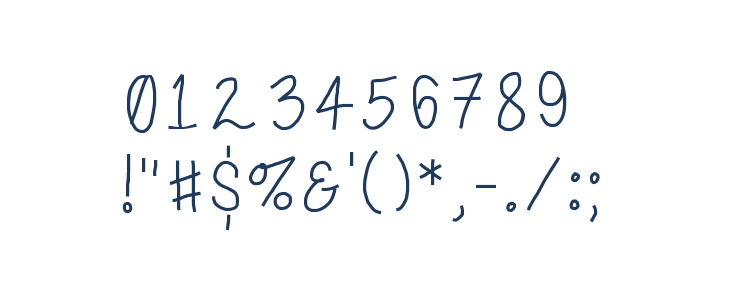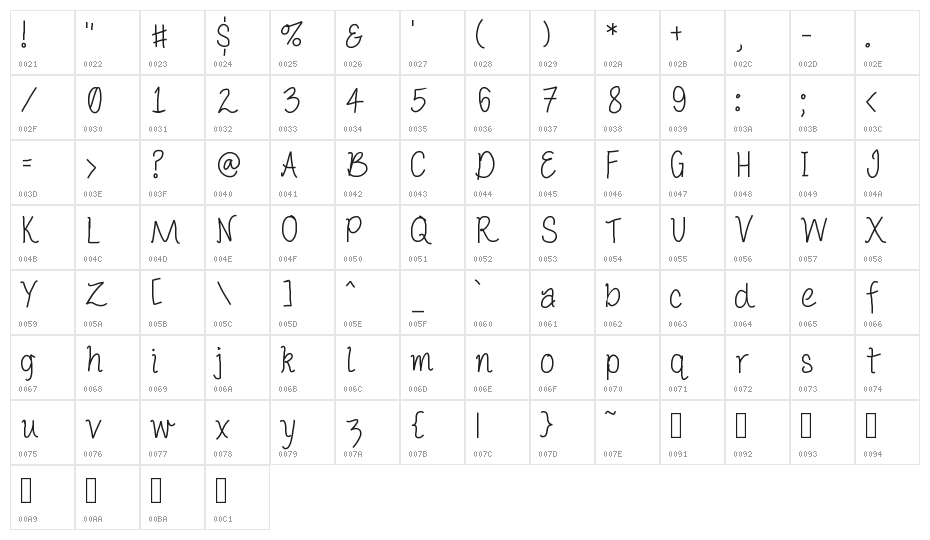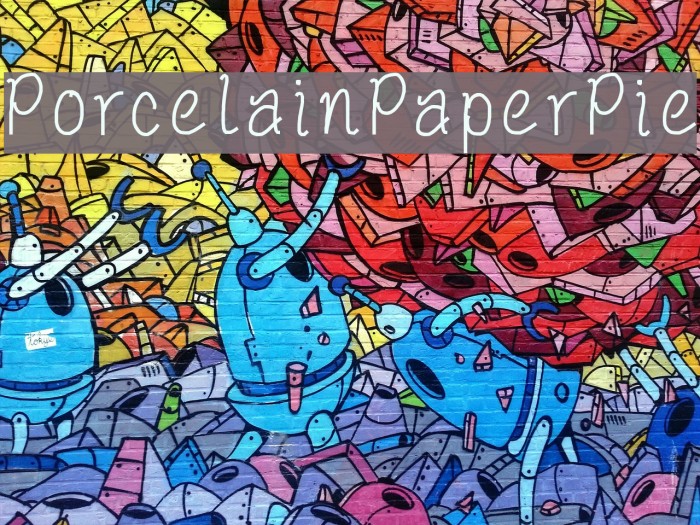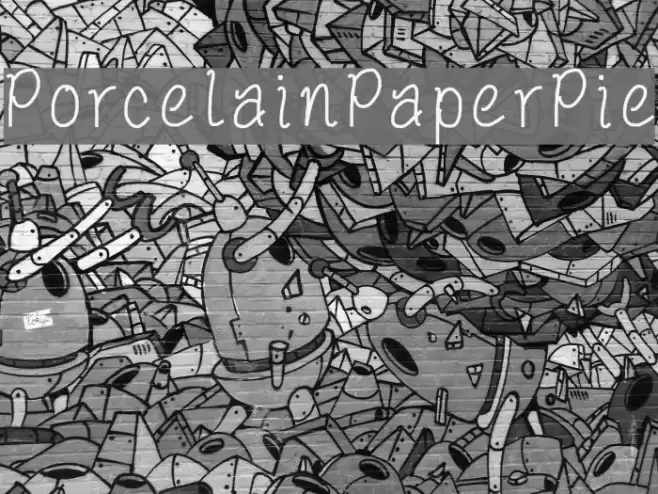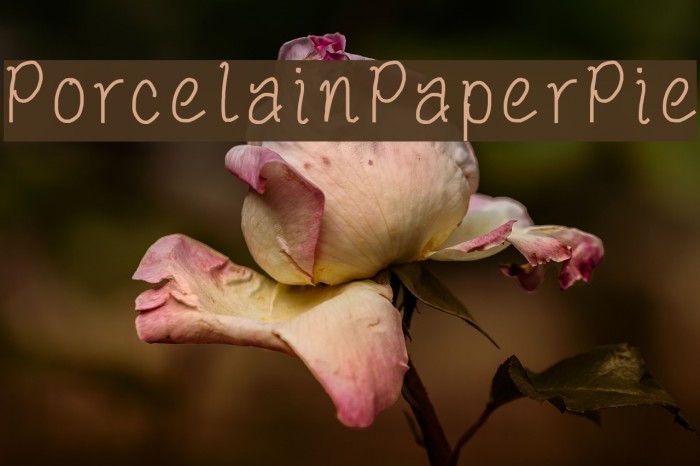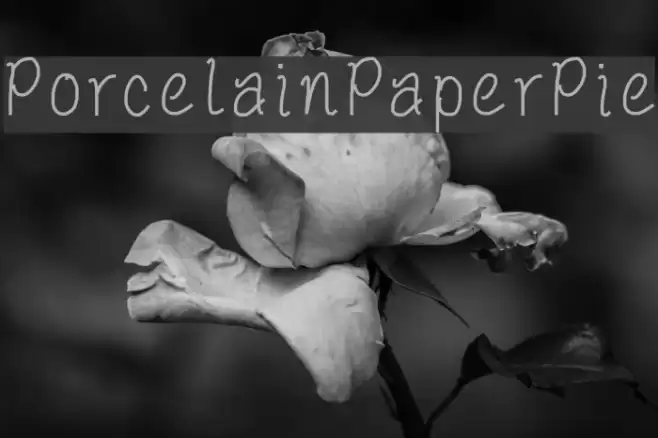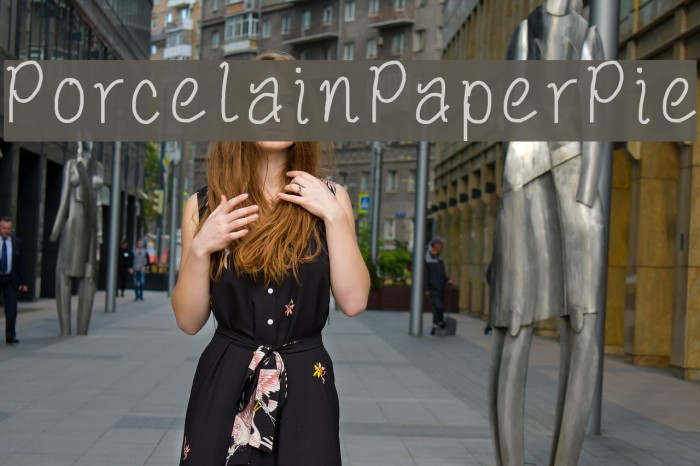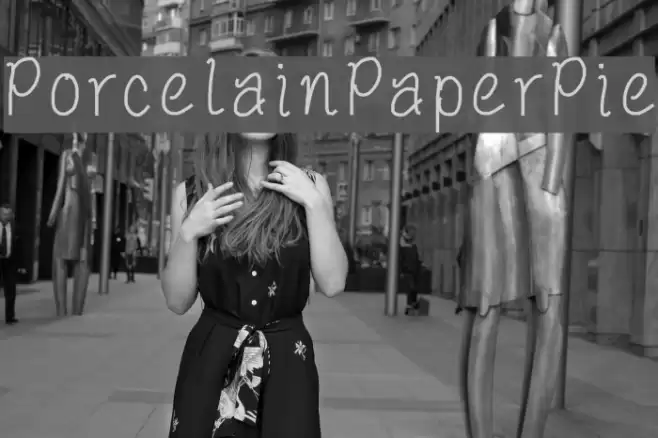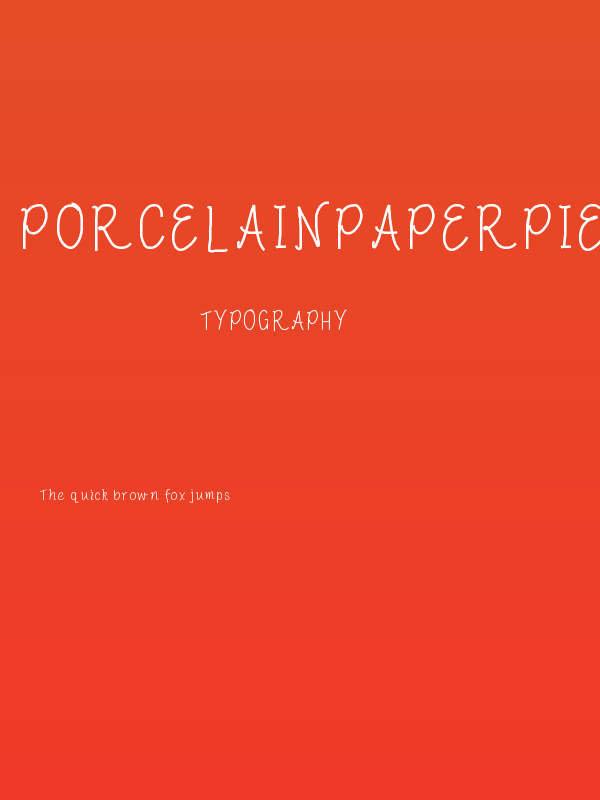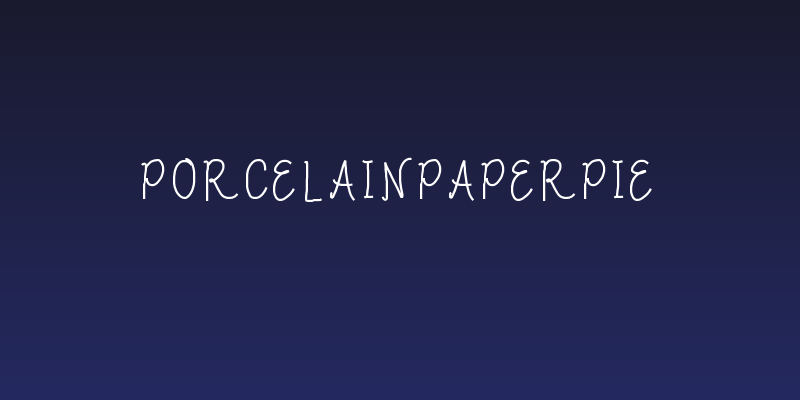
PorcelainPaperPie Font
PorcelainPaperPie Description
This font features a playful and whimsical handwritten style, characterized by its irregular strokes and casual appearance. The uppercase letters are tall and slightly narrow, with a consistent baseline that gives a sense of uniformity despite the hand-drawn look. The lowercase letters maintain a similar style, with some characters like 'g' and 'y' having distinctive loops that add to the font's charm. Numbers are clear and legible, following the same playful aesthetic. Special characters are well integrated, maintaining the overall style. This font is perfect for projects that require a personal touch, such as invitations, greeting cards, or creative branding.
| Overall Style | Whimsical |
| Proposed Projects | Ideal for invitations, greeting cards, creative branding, and personal projects. |